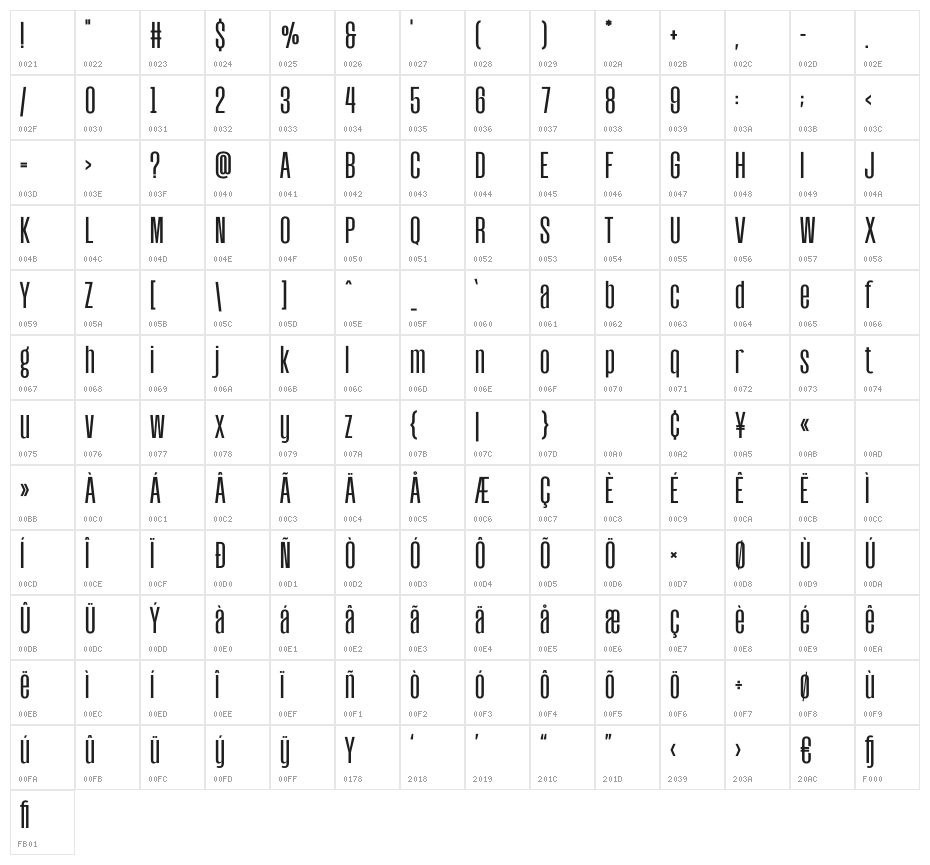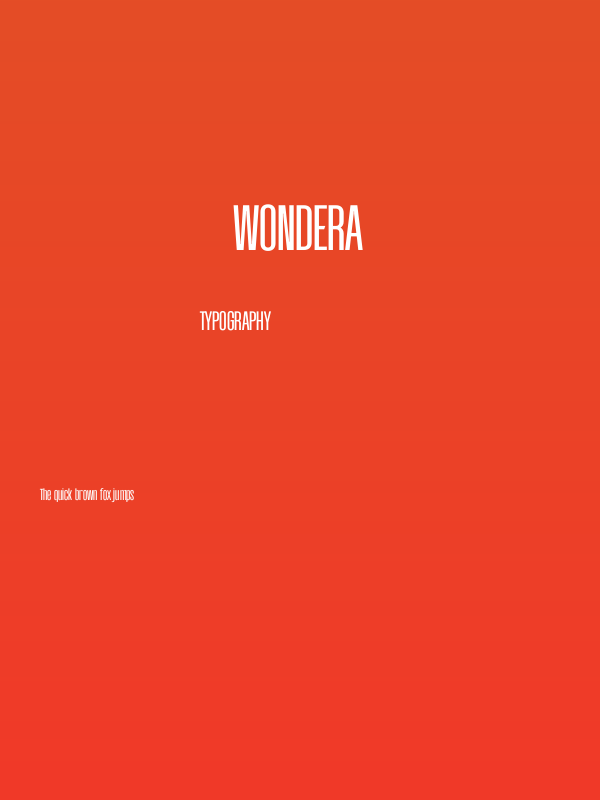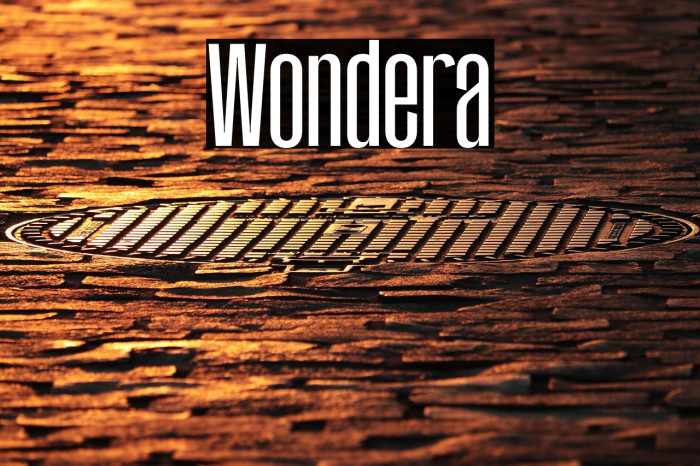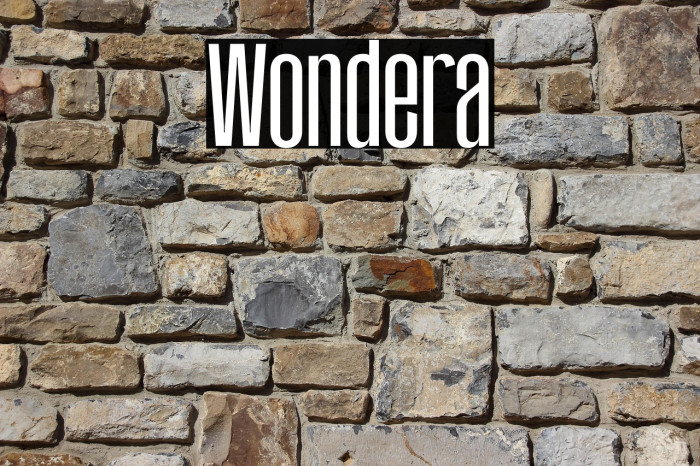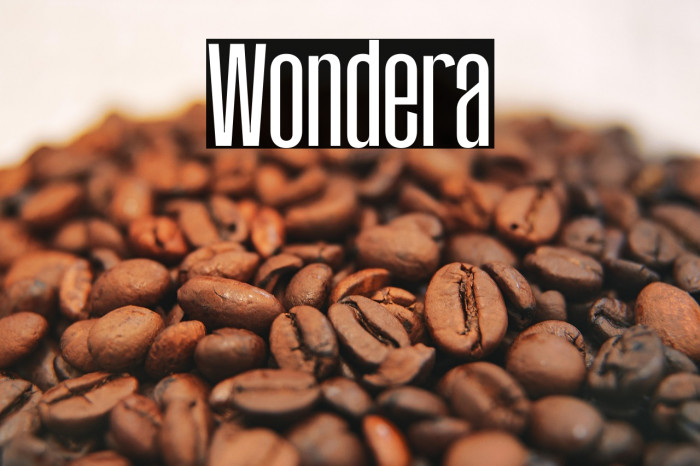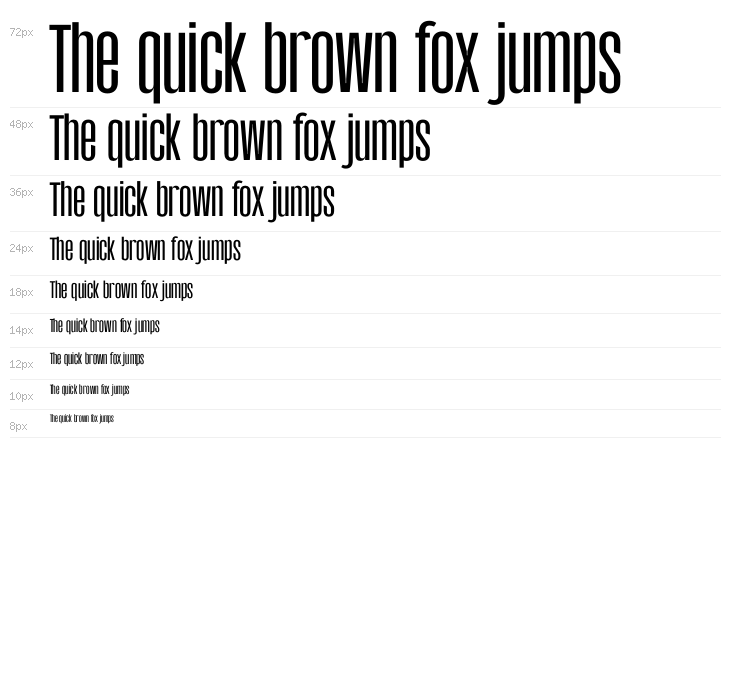
Wondera Font
Wondera Description
This font features a tall and narrow design with a modern and sleek appearance. The characters are uniformly structured, providing a sense of consistency and elegance. The uppercase letters are bold and commanding, while the lowercase letters maintain a similar height, contributing to a cohesive look. The numerals are clear and legible, matching the overall style of the alphabet. Special characters are included, enhancing the font's versatility. The vertical alignment and uniform stroke width give it a contemporary feel, making it suitable for various design applications.
| Proposed Projects | Ideal for branding, posters, headlines, and modern web design projects. |